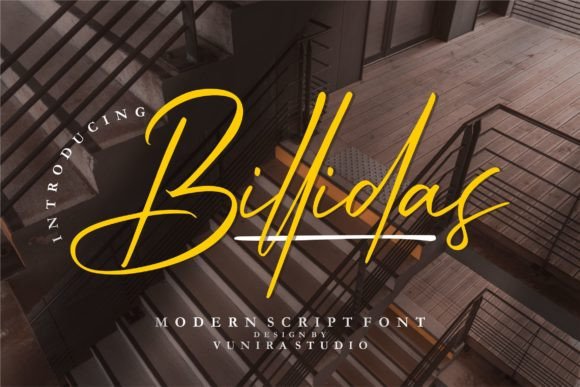
Unleash your creativity and let your words flow with the enchanting Billidas Font - a masterpiece designed to ignite passion in every project. Handcrafted with meticulous attention to detail, this script typeface will elevate your designs to new heights of elegance and sophistication.
Designed by the talented Vunira, Billidas captures the essence of romance and sweetness, featuring characters that dance along the baseline with a playful, yet graceful movement. Each letter is meticulously crafted to complement the next, creating a harmonious symphony of shapes that will leave your audience spellbound.
Indulge in the luxury of Billidas and discover a world of endless creative possibilities. Whether you're designing wedding invitations, crafting heartfelt letters, or creating stunning social media posts, Billidas will add a touch of magic to every project. Its versatility knows no bounds, allowing you to effortlessly elevate the look and feel of your designs.
With Billidas, you'll have the freedom to express your true self through your words, knowing that each character will carry your message with grace and style. Let your creativity soar and watch as your designs come to life with a new level of sophistication and charm.
Don't miss out on the opportunity to make a lasting impression with Billidas. Embrace the power of this enchanting font and let your words dance off the page, captivating the hearts and minds of your audience. Discover the magic of Billidas today!